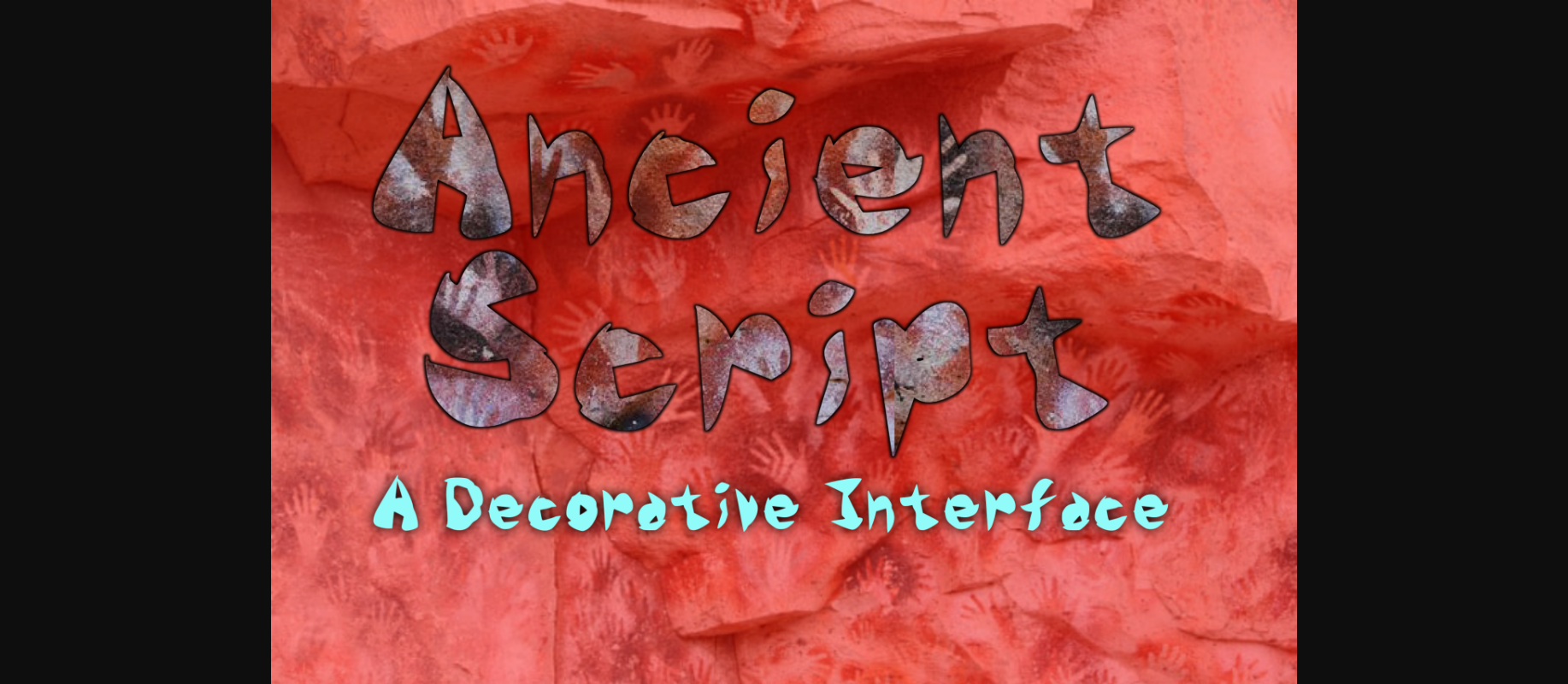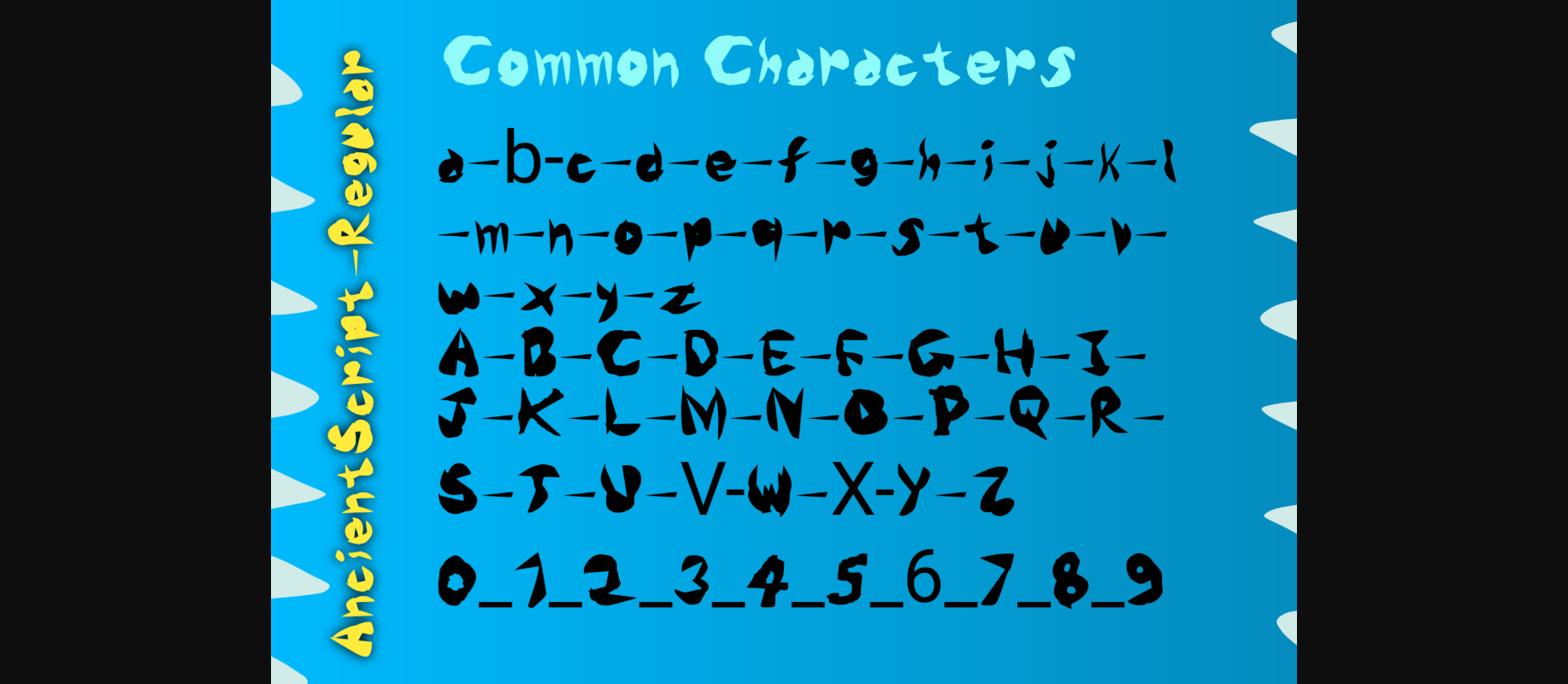
About Ancient Script Font
Ancient Script is a cool and unique decorative font. Whether you are using it for cartoon-related designs, children’s games, quotes, titles, brand names, book covers, posters, or just any creation that requires a touch of beauty, this font is a great choice.